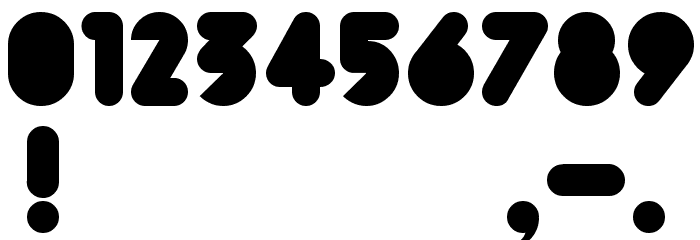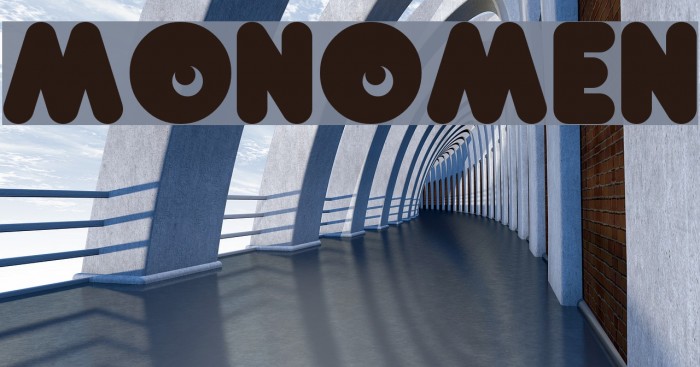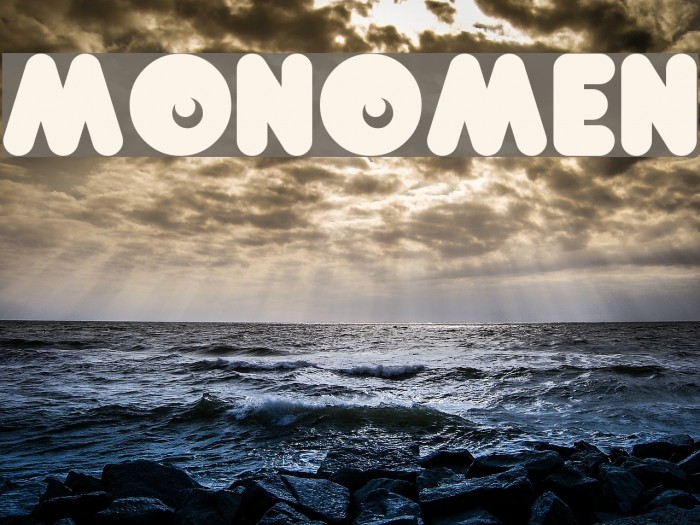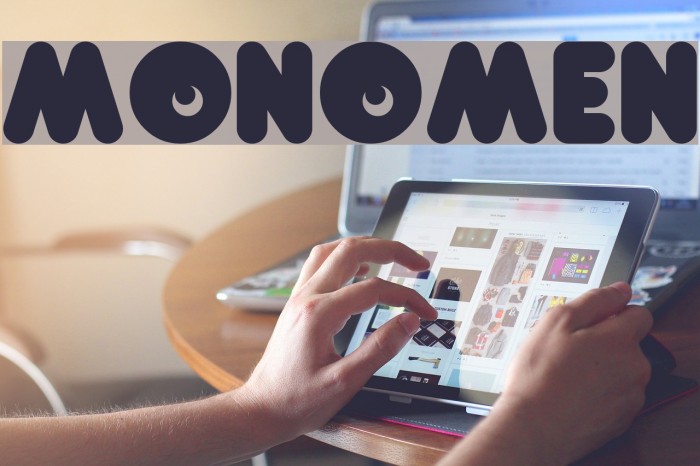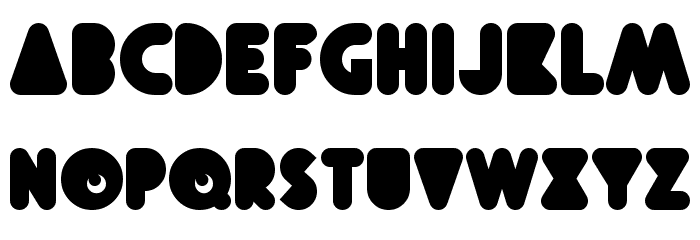
Monomen Font
Monomen Description
This font features a bold and playful design with rounded, geometric shapes that give it a distinctive, modern appearance. The characters are uniformly thick, contributing to a cohesive and visually impactful style. The rounded edges and consistent stroke width create a friendly and approachable feel, making it suitable for a variety of creative applications. The font's boldness ensures high readability, while its unique character shapes add a touch of whimsy and fun. This typeface is ideal for projects that require a strong visual presence and a contemporary aesthetic.
| Proposed Projects | Ideal for branding, posters, children's books, and any project needing a fun and modern touch. |